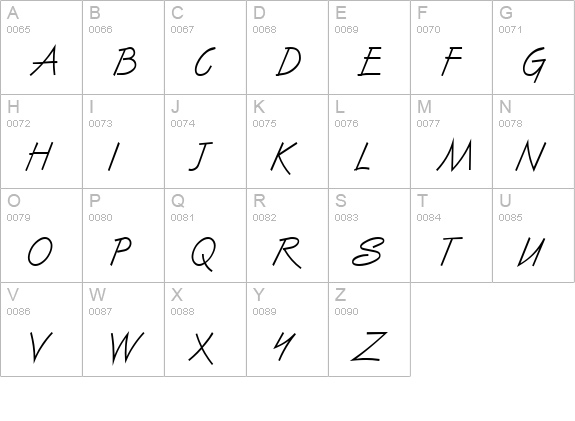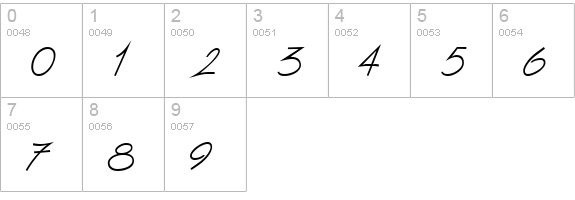
Surfer Normal is the standard, neutral variant in the Surfer typeface family \xE2\x80\x94 well suited to general body text, paragraphs, and standard typographic work.
Surfer Normal font is a versatile and modern typeface that exudes a laid-back and carefree vibe, perfect for projects that require a touch of casual elegance. This font features clean lines and a sleek design, making it ideal for a wide range of applications, from branding to editorial design. What sets Surfer Normal font apart is its ability to capture the essence of the surf culture with its effortless style and relaxed charm. Whether you're working on a beach-themed project or simply want to add a touch of personality to your designs, this font is sure to make a splash. Best of all, Surfer Normal font is available for free download at FontsMarket.com, making it easily accessible to designers and creatives looking to add a touch of surf-inspired flair to their projects. Don't miss out on this opportunity to elevate your designs with the playful and stylish Surfer Normal font.